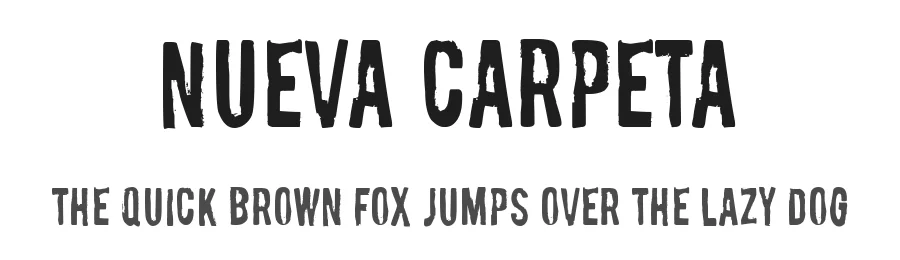
About My World Font
My World is a decorative font designed by Sk8er Punkd. It includes 145 glyphs, a regular weight, TTF (TrueType) format, and 138 languages. My World is free to download; check the license details on this page before commercial use. Decorative fonts like My World work best for logos, posters, packaging, and standout headlines.
My World Font is a decorative font that shines as a display or heading face. Pair it with a clean sans-serif or serif font for body text β the contrast creates a clear hierarchy while the two styles stay balanced and easy to read.
My World Font
by Sk8er Punkd